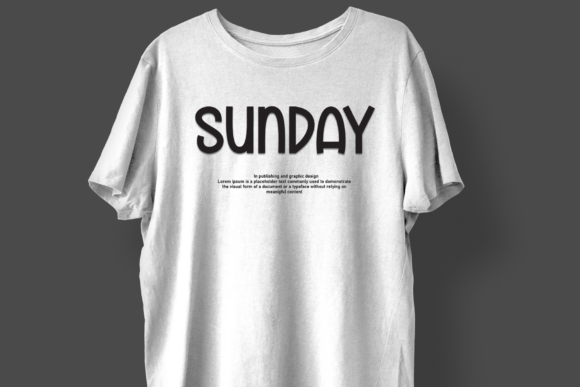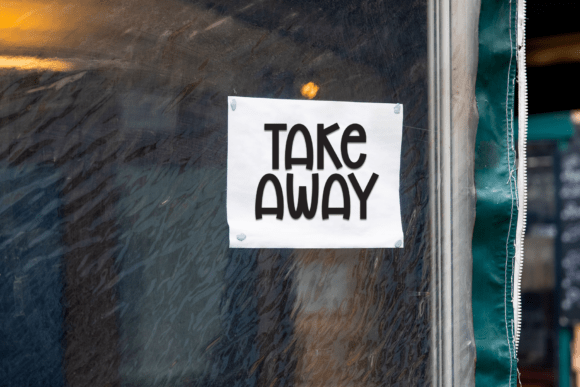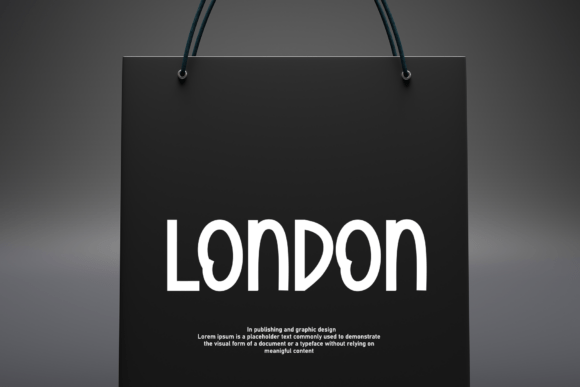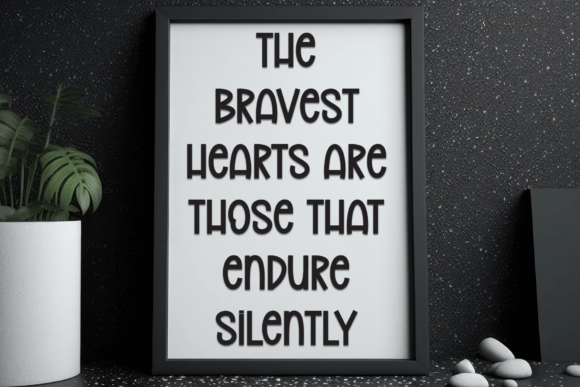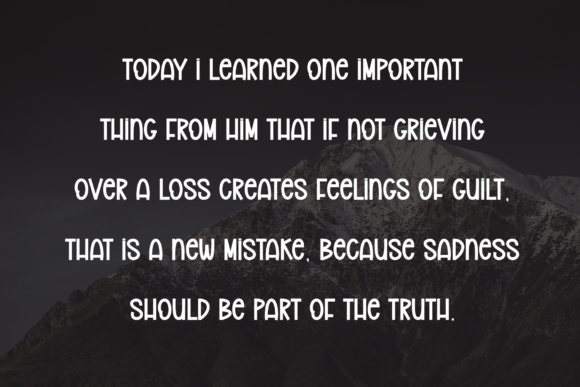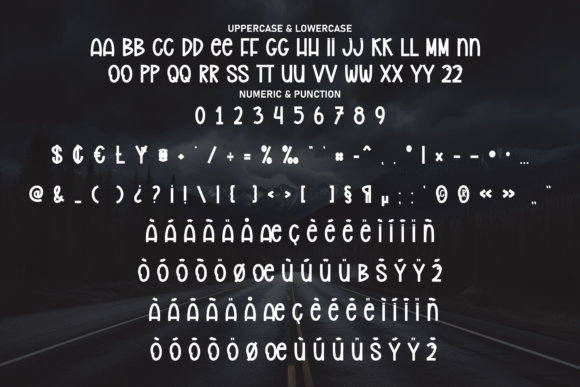
The Magic of Dark Road Font: A Designer’s Delight
I still remember the day I stumbled upon the perfect font for a wedding invitation project. I had been searching for what felt like hours, trying out font after font, but nothing seemed quite right. That was until I discovered Dark Road Font. Its sweet and amiable character immediately captured my attention, and I knew I had found the one. In this article, I’ll share my experience with this captivating handwritten display font and show you how to make the most of its charming features.
I’ve had the pleasure of working with Dark Road Font on several projects, and here’s what I think:
- ✨ The font’s unique blend of sophistication and whimsy makes it perfect for a variety of design projects, from wedding invitations to sentimental cards.
- ✅ The handwritten style is endearingly imperfect, adding a touch of warmth and personality to any design.
- ✅ The font is incredibly versatile, pairing well with both bold and delicate design elements.
While Dark Road Font is a stunning addition to any design, there are a few things to keep in mind:
- ⚠️ Some of the more intricate glyphs can be a bit finicky, requiring a bit of tweaking to get just right.
- 🤔 The font’s playful nature can make it challenging to use in more formal designs, so be sure to consider your project’s tone before incorporating it.
The Story Behind Dark Road Font
While the true origins of Dark Road Font are shrouded in mystery, it’s said that the font was created by a talented designer who wanted to capture the essence of handwritten notes and letters. Inspired by the imperfect beauty of handwritten script, the designer carefully crafted each glyph to evoke a sense of warmth and personality.
| Font Name | Dark Road Font |
| What makes Dark Road Font so special? | Dark Road Font’s unique blend of sophistication and whimsy makes it perfect for a wide range of design projects. |
| Is Dark Road Font difficult to read? | While Dark Road Font is a display font, it’s surprisingly legible, making it perfect for short texts and headings. |